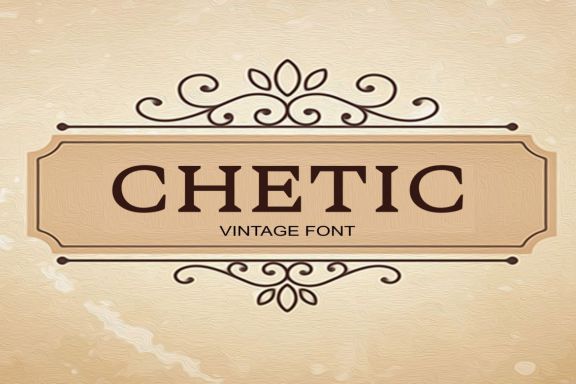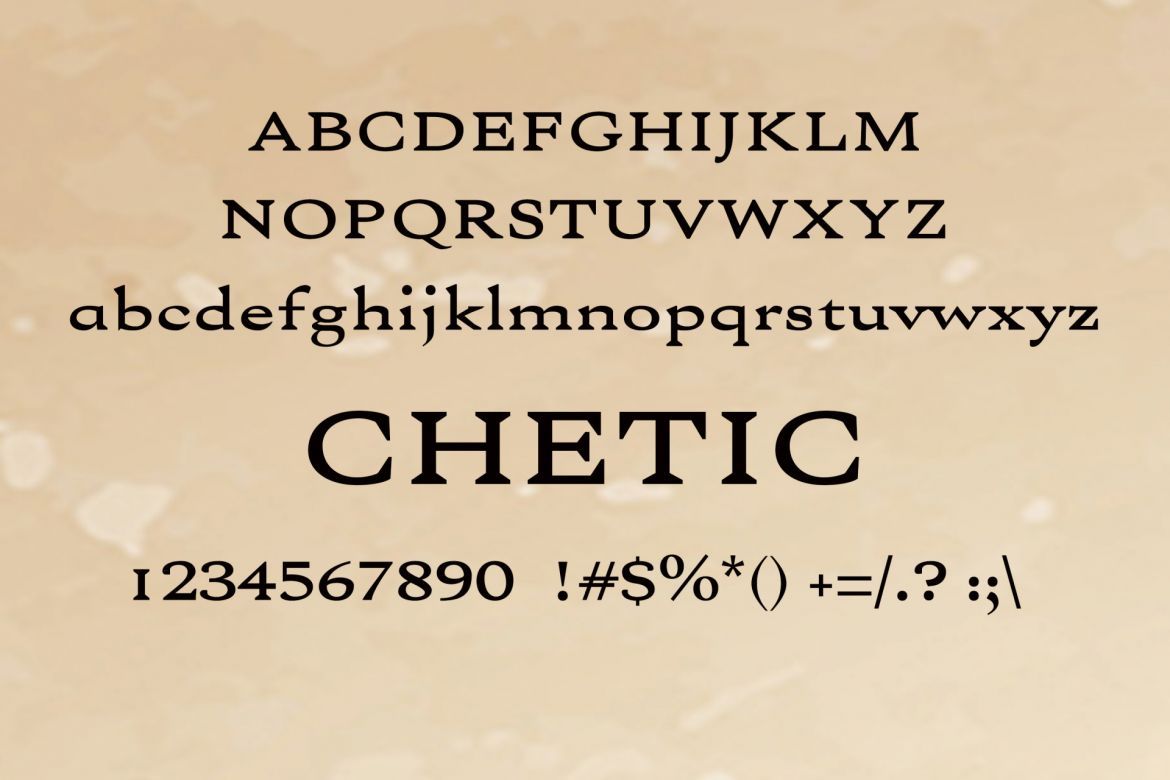
Chetic Serif Font
Introducing a new vintage font. Inspired from retro typography from 80's combine with bold typography style. Come with open type feature with a lot of alternates and end swash, its help you to make great lettering. This Vintage Font best uses for Logotype, heading, cover, poster, logos, quotes, product packaging, header, merchandise, social media & greeting cards and many more.